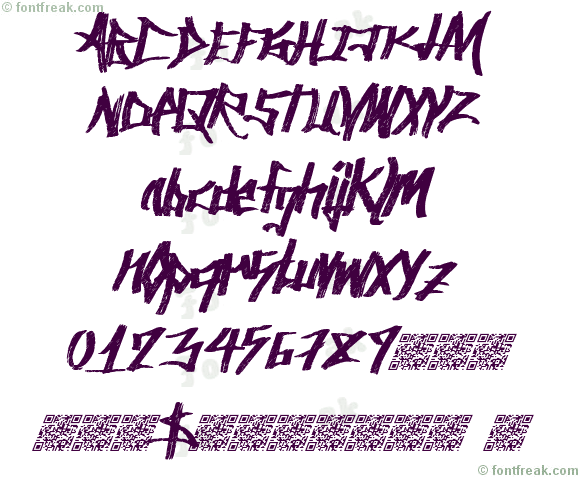
AncientSprawl
AncientSprawl, designed by XEROGRAPHER FONTS in 2014, is a captivating display font that falls within the decorative category. This typeface exhibits a unique, rugged aesthetic that gives it an organic, hand-drawn quality. The strokes feature a bold weight with deliberate irregularities, creating a sense of spontaneity and artistic flair. The contrast between thick and thin strokes is pronounced, enhancing its visual impact and making it an eye-catching choice for various design projects. The spacing is open, allowing the characters to breathe and ensuring legibility even at larger sizes.
This versatile font is particularly well-suited for a range of creative uses. It works wonderfully for movie posters, where it can convey a sense of drama and intrigue. Additionally, AncientSprawl is an excellent choice for album artwork, especially in genres like punk or alternative, where its edgy style resonates with the music's spirit. Restaurant menus seeking a distinctive flair can also benefit from this font, as it adds a touch of personality to the dining experience. Furthermore, small business branding and promotional materials can leverage AncientSprawl to create a memorable visual identity that stands out in a crowded marketplace.
The target audience for this font includes graphic designers, small business owners, and content creators looking to infuse their projects with a unique character. Whether you’re crafting a digital campaign or designing print materials, AncientSprawl can enhance your creative vision.
What sets the AncientSprawl font apart is its ability to combine artistic individuality with functional usability. Its raw, expressive style captures attention while remaining practical for various applications. For those interested in incorporating this font into their designs, the AncientSprawl font free download is available, making it accessible for all creative pursuits.